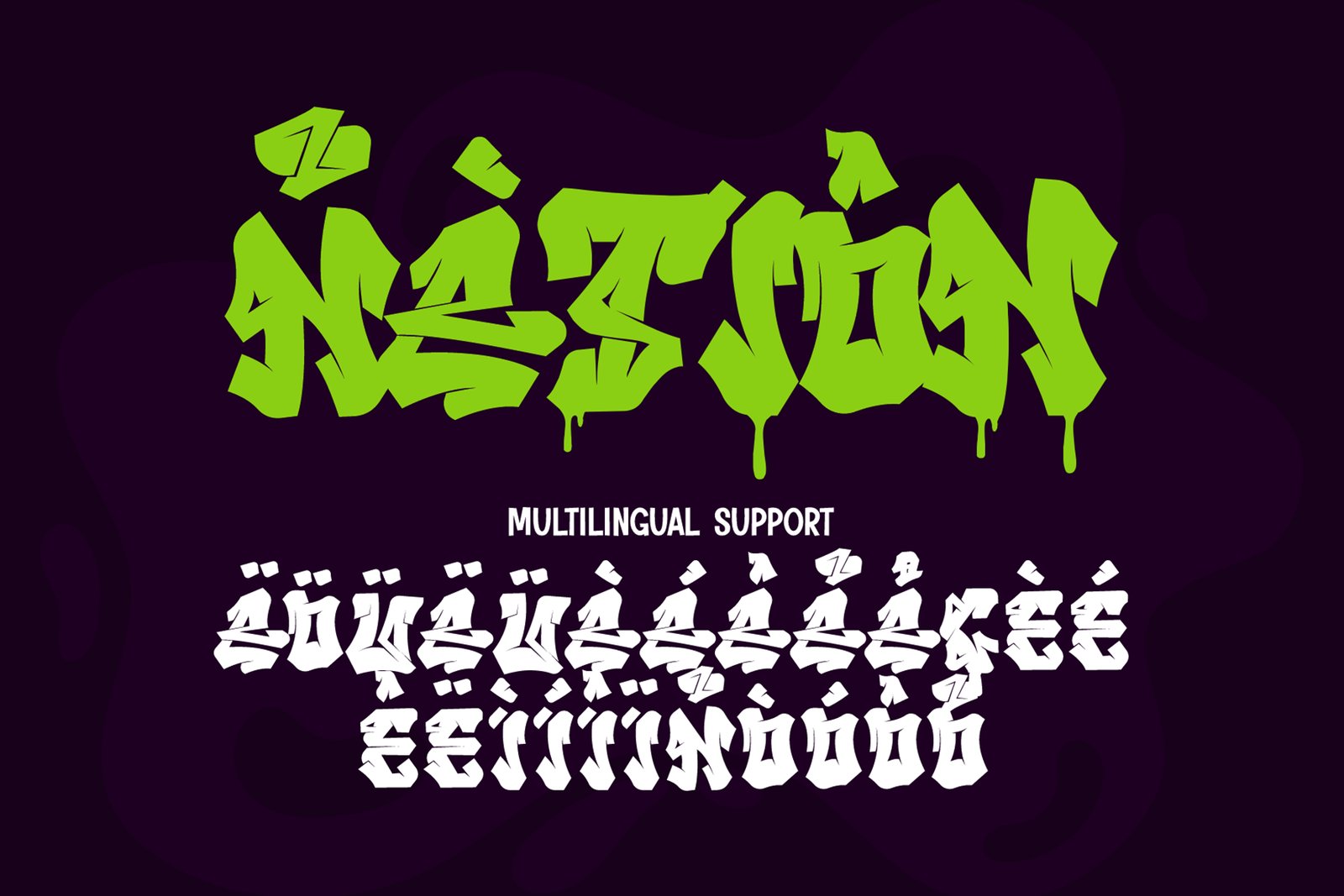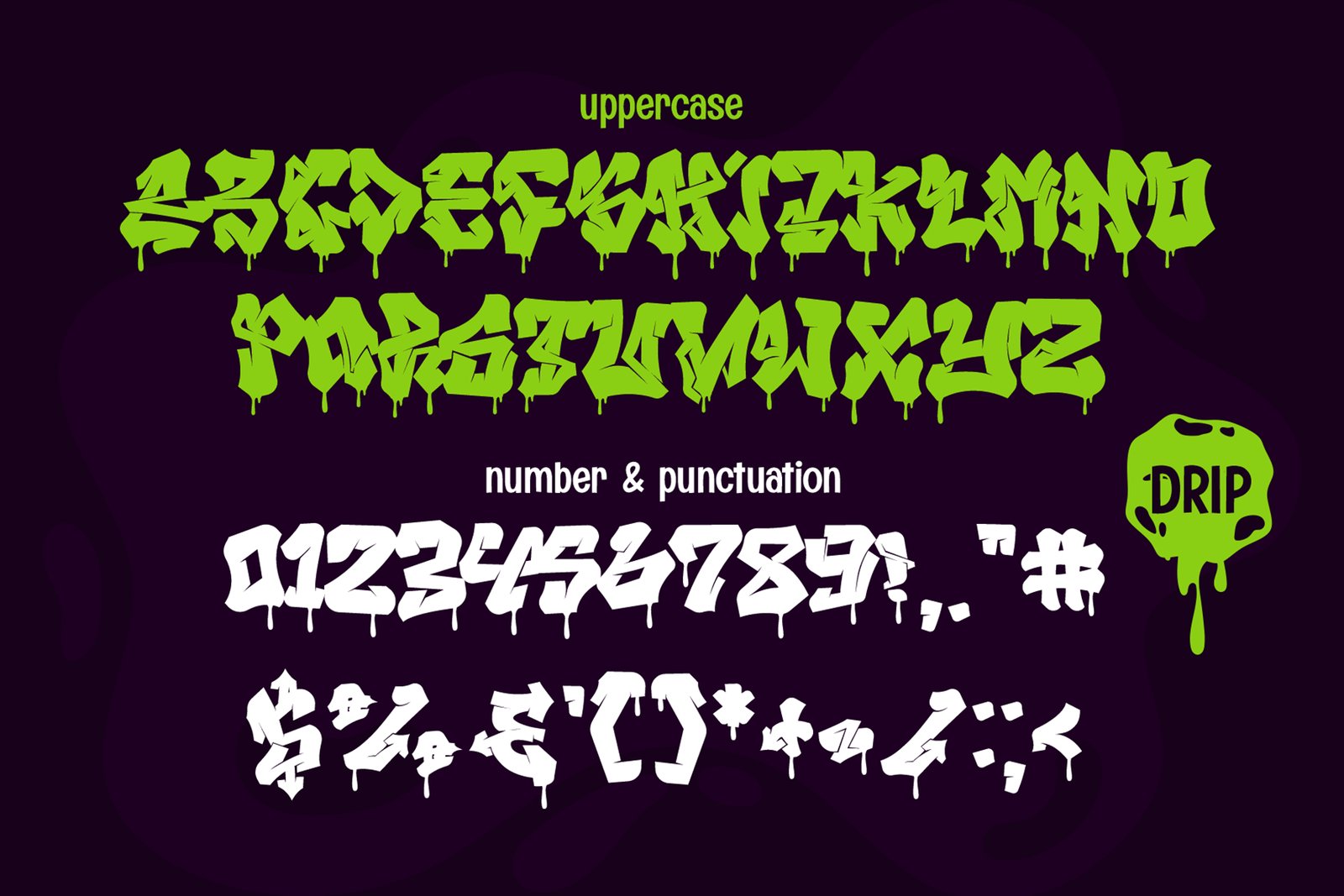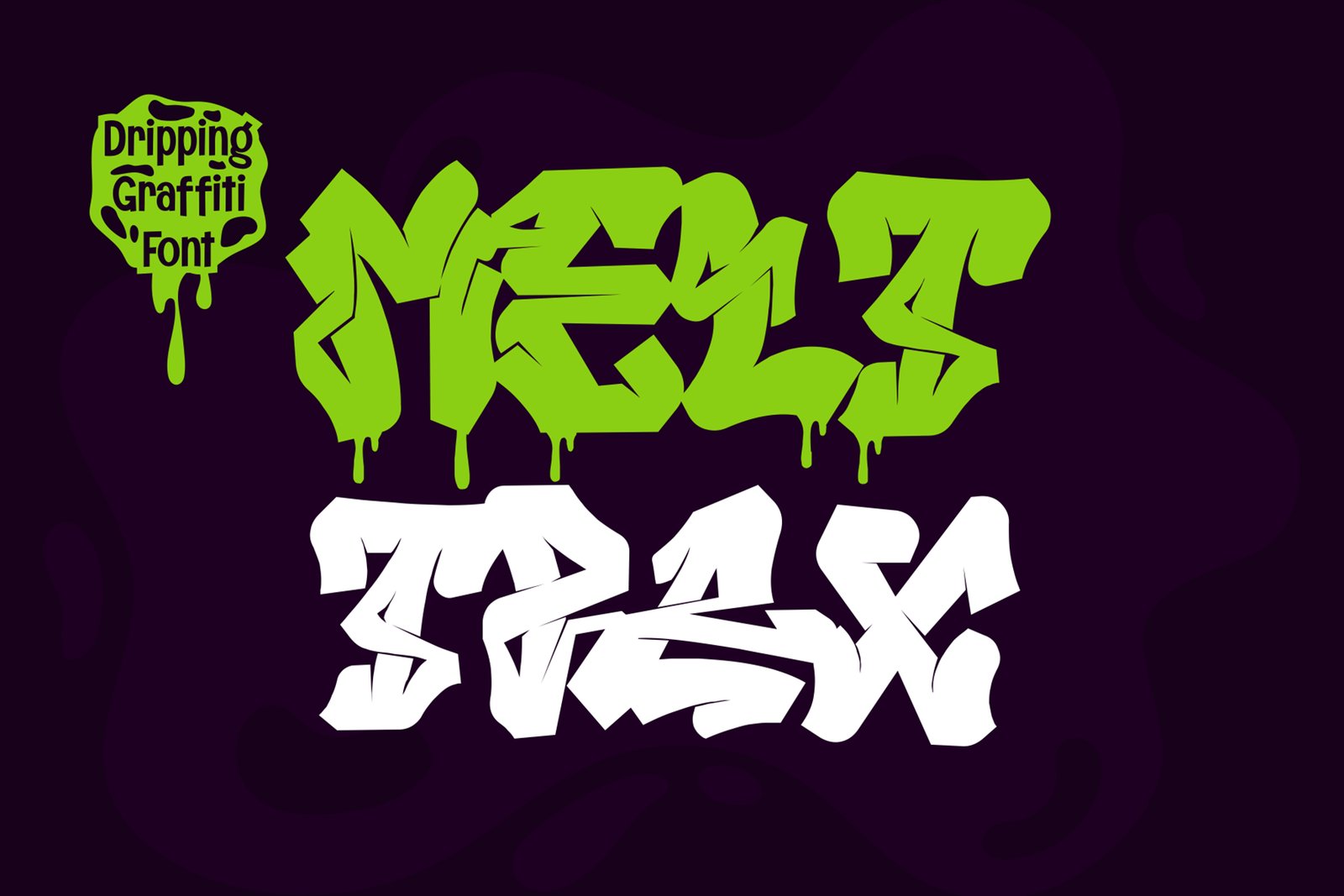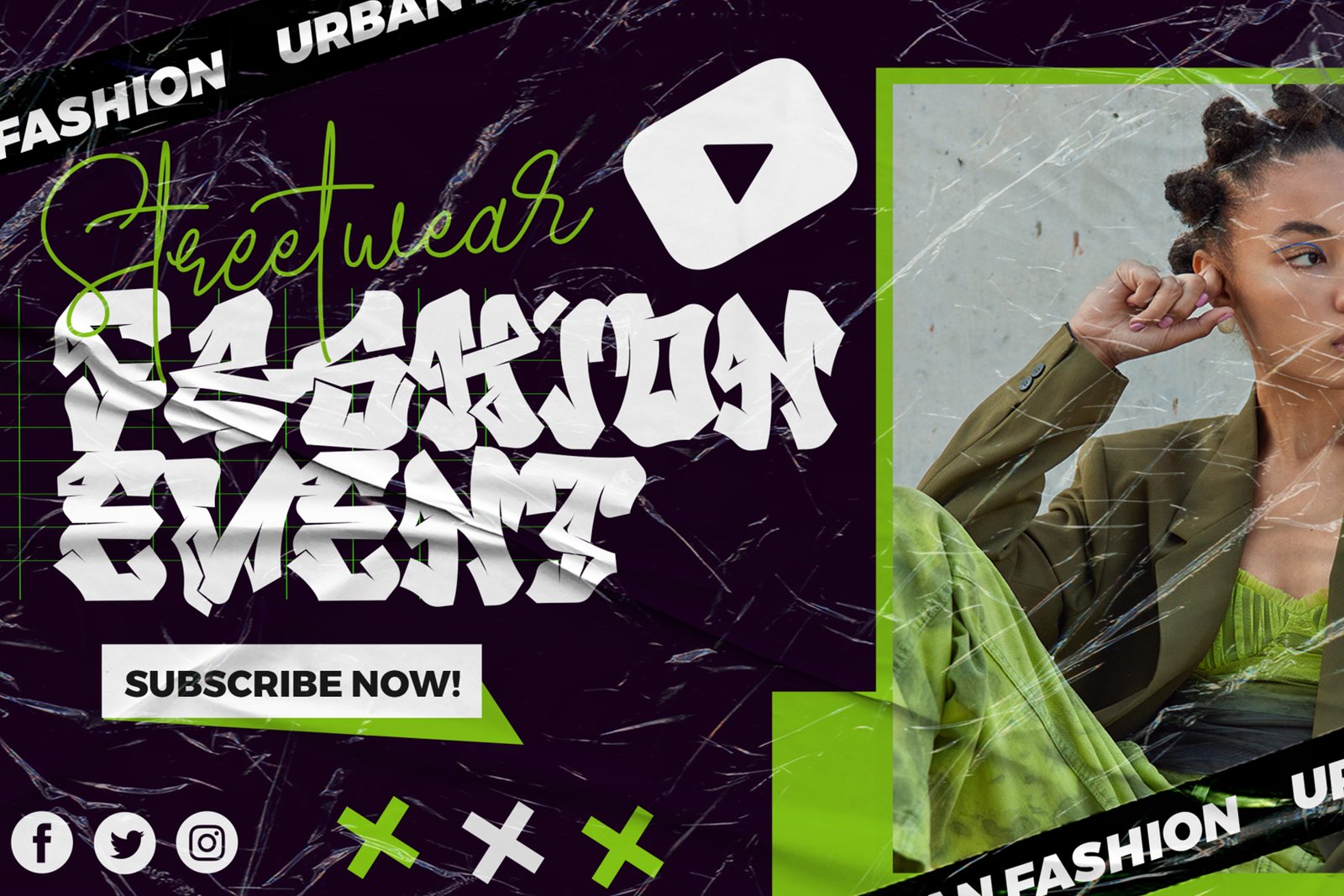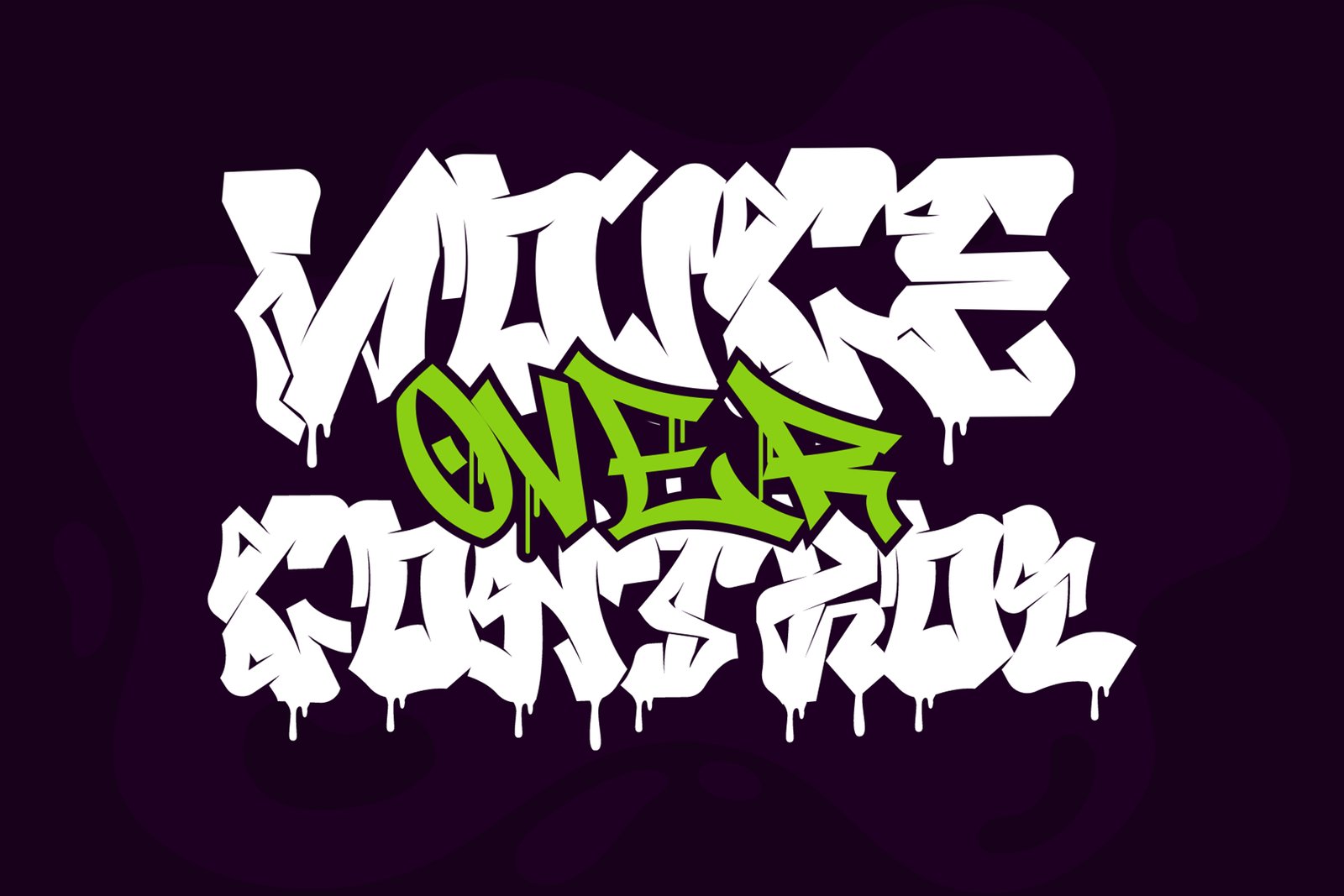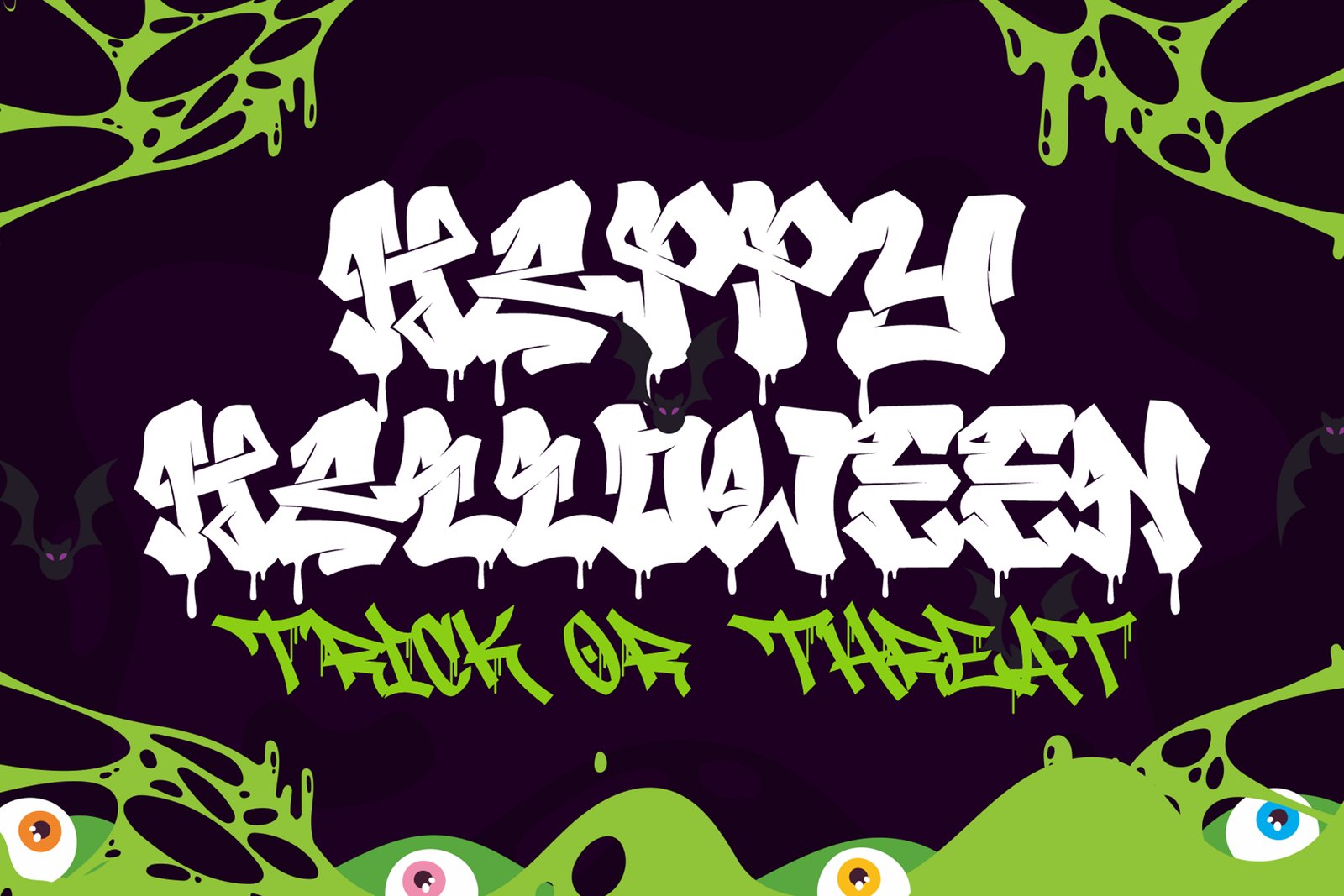
Melttrax – Urban Graffiti Font with Dripping Style
Melttrax is a graffiti display font with a bold presence and two expressive styles: Clean (Solid) and Drip. Crafted for high-impact visuals, Melttrax brings raw street attitude to your posters, branding, stickers, and apparel.
Whether you're working on music covers, skateboarding designs, or Halloween-themed projects, Melttrax delivers authentic graffiti energy with its unique shapes and dripping variations.